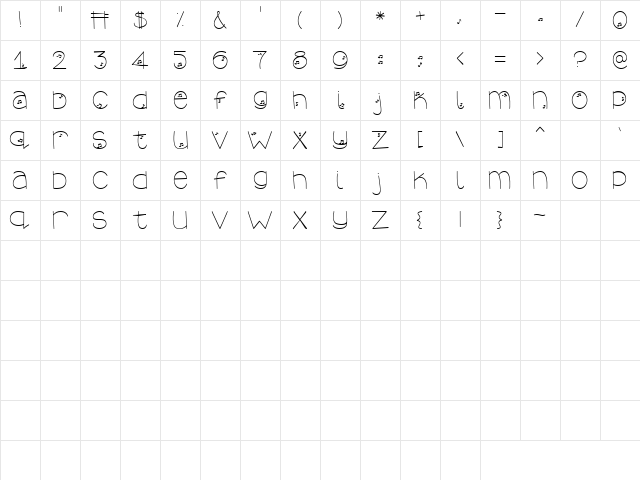
LD Tunes Print Regular
Design Context for LD Tunes Print Typeface
LD Tunes Print takes a measured approach to typography — its balanced proportions and neutral character make it a reliable workhorse for both digital and print work.
Pro Tip: Use LD Tunes Print in both headline and body roles to test its range before committing to a single application.